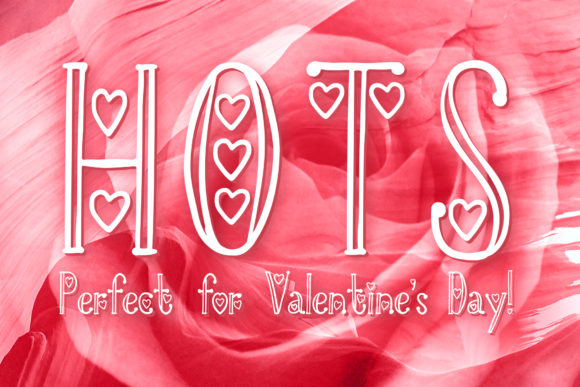
**Hots Font: A Love-Filled Delight for Your Creative Endeavors**
In the realm of digital artistry, where imagination reigns supreme, there exists a font that embodies the very essence of love and affection: Hots Font. This enchanting decorative font, lovingly crafted by the talented ilonitta.r, is a symphony of hand-drawn hearts, each one meticulously designed to evoke the sweet pangs of romance.
With Hots Font as your creative companion, you can effortlessly conjure a world of visual delight. Picture this: a valentine's day gift card adorned with heartfelt messages, enveloped in an aura of love. Or, imagine packaging designs that whisper sweet nothings to the recipient, transforming ordinary gifts into extraordinary tokens of affection. Let your imagination soar as you create heartfelt invitations, wedding stationery, and love letters that speak volumes without uttering a single word.
The Hots Font is not merely a collection of characters; it is an expression of the human spirit, a testament to the enduring power of love. Its delicate lines and graceful curves invite you to explore the depths of your creativity, to craft designs that are as unique and beautiful as the emotion they seek to convey.